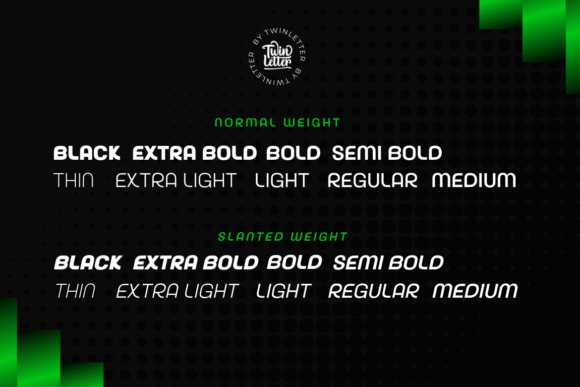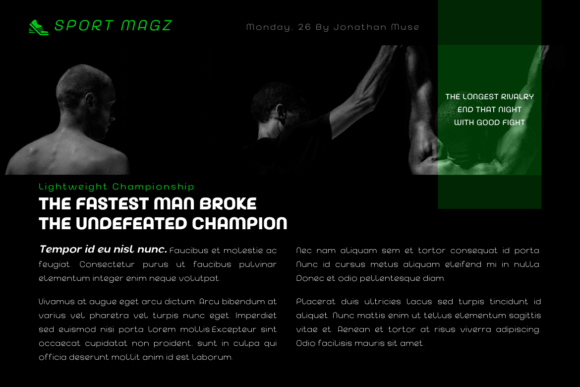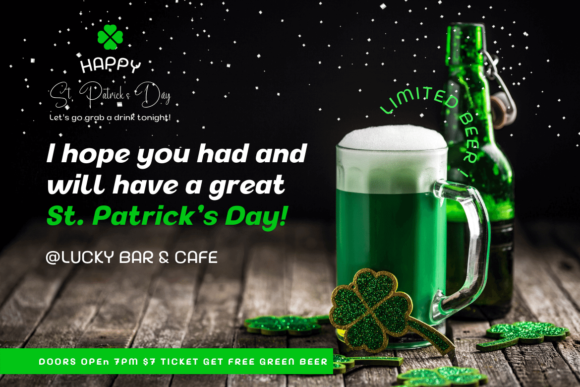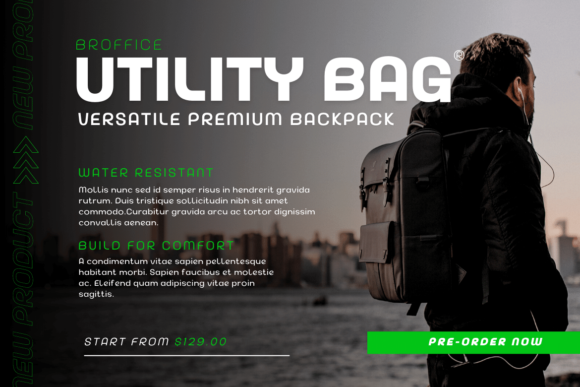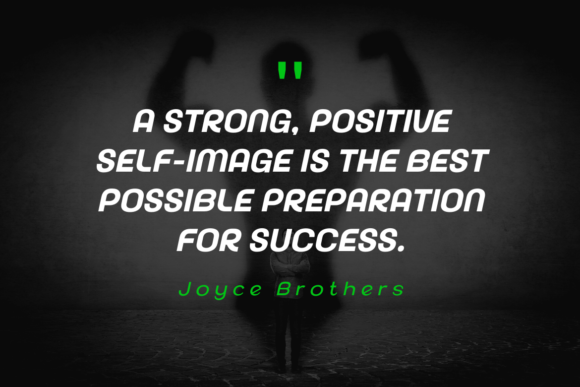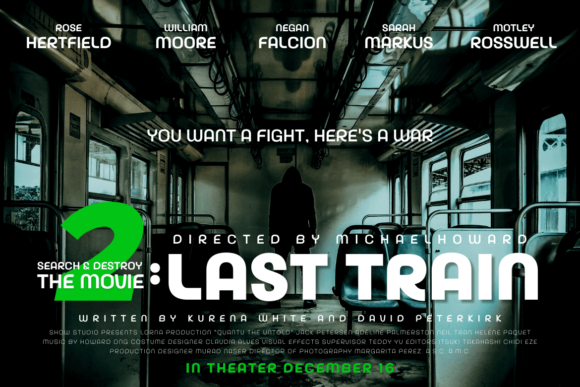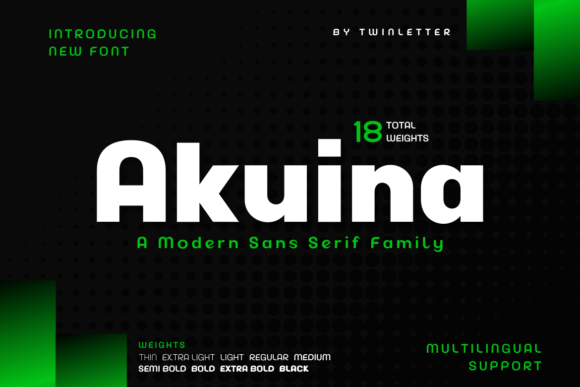
Akuina Font: Elevate Your Designs with Elegance and Modernity
In the world of typography, fonts play a crucial role in conveying the tone and aesthetic of a design. For designers and crafters seeking a modern and elegant sans serif font, Akuina is an excellent choice. This beautiful font is perfect for creating stunning book covers, magazines, social media posts, invitations, and more. In this article, we’ll explore the features and benefits of Akuina Font, and how it can elevate your designs to the next level.
What is Akuina Font?
Akuina Font is a modern sans serif font that exudes elegance and sophistication. Its minimalist and clean vibe makes it an ideal choice for designers who want to create visually appealing designs without overwhelming their audience. The font’s simple yet refined lines make it perfect for a wide range of applications, from print materials to digital media.
Key Features of Akuina Font
- Elegant and Modern Design: Akuina Font boasts a sleek and contemporary design that will give your designs a fresh and modern look.
- Minimalist and Clean Vibe: The font’s simplicity and cleanliness make it easy to read and perfect for designs where clarity is essential.
- Versatile: Akuina Font can be used for a wide range of applications, including book covers, magazines, social media posts, invitations, and more.
- Easy to Read: The font’s clear and concise lines ensure that your text is easy to read, even at small sizes.
Benefits of Using Akuina Font
Using Akuina Font in your designs offers several benefits, including:
- Enhanced Visual Appeal: Akuina Font’s elegant and modern design will instantly elevate the visual appeal of your designs.
- Improved Readability: The font’s clean and simple lines ensure that your text is easy to read, making it perfect for designs where clarity is crucial.
- Flexibility: Akuina Font can be used for a wide range of applications, making it a versatile addition to your font library.
- Time-Saving: With Akuina Font, you can create stunning designs quickly and efficiently, saving you time and effort.
How to Use Akuina Font in Your Designs
Using Akuina Font in your designs is easy. Here are a few tips to get you started:
- Pair it with Other Fonts: Akuina Font pairs well with other fonts, making it easy to create visually appealing combinations.
- Experiment with Sizes and Colors: Try out different sizes and colors to find the perfect combination for your design.
- Use it for Headings and Body Text: Akuina Font is suitable for both headings and body text, making it a versatile choice for your designs.
In conclusion, Akuina Font is an excellent choice for designers and crafters seeking a modern and elegant sans serif font. Its minimalist and clean vibe makes it perfect for a wide range of applications, from print materials to digital media. With its ease of use, versatility, and stunning design, Akuina Font is sure to elevate your designs to the next level. So why wait? Download Akuina Font today and start creating stunning designs that will leave a lasting impression!
- Is Akuina Font suitable for body text? Yes, Akuina Font is suitable for body text due to its clarity and readability.